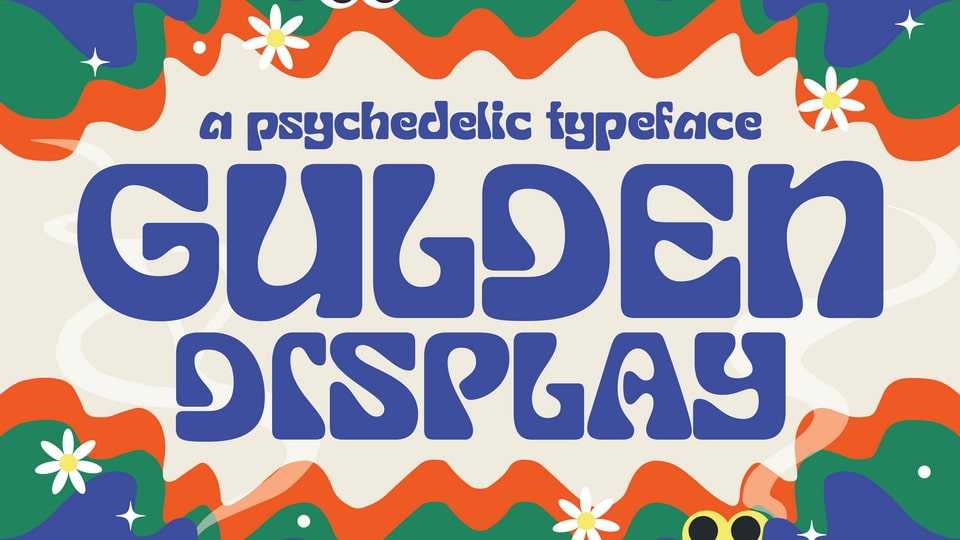
Download Gulden Display font, a psychedelic display font, perfect for adding some trippy vibes to your designs. This bold and eye-catching font features swirling, abstract shapes and patterns that seem to move and shift right before your eyes.